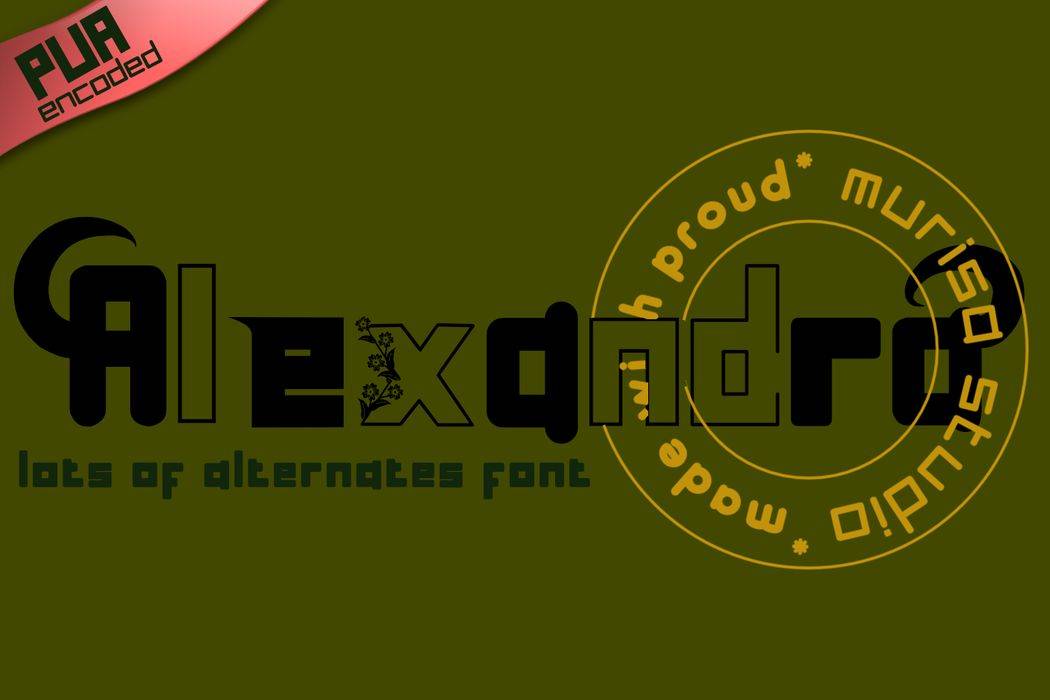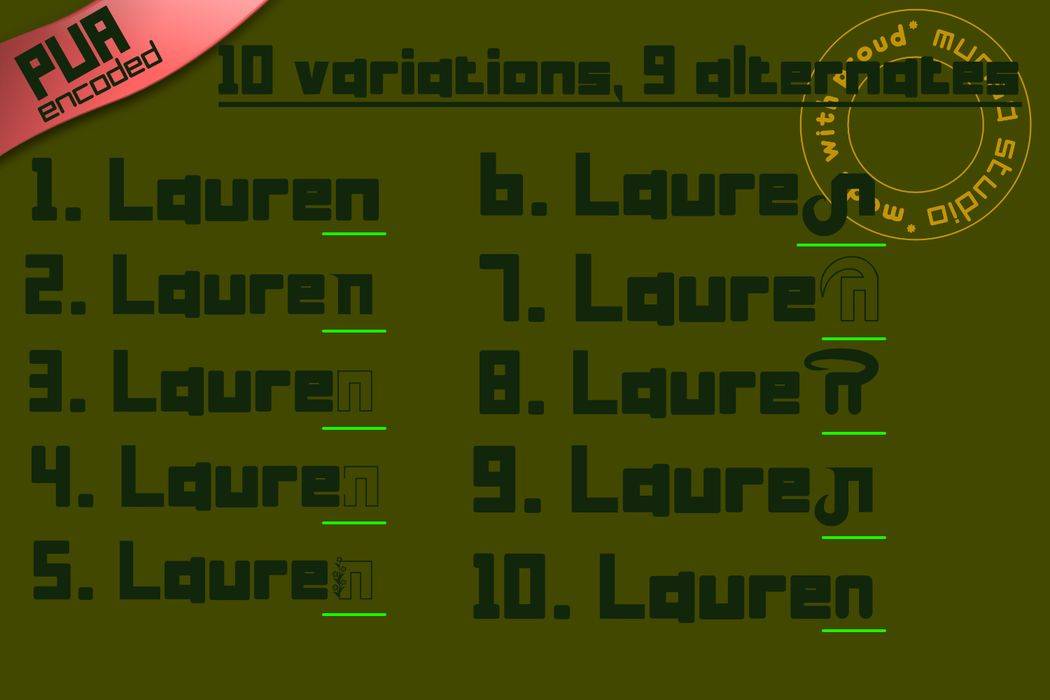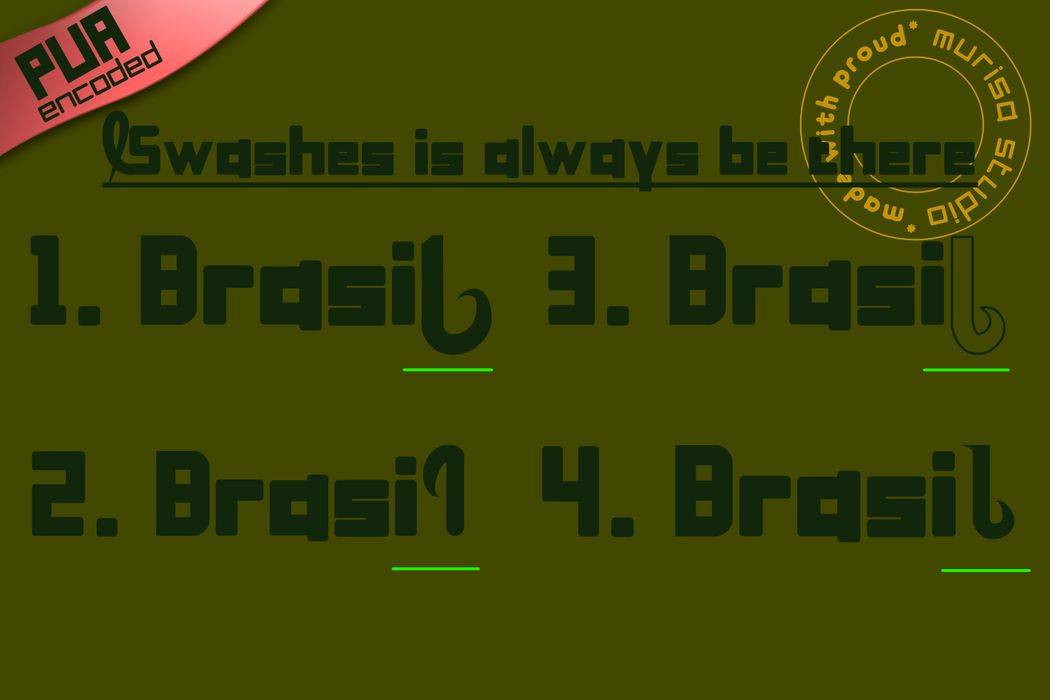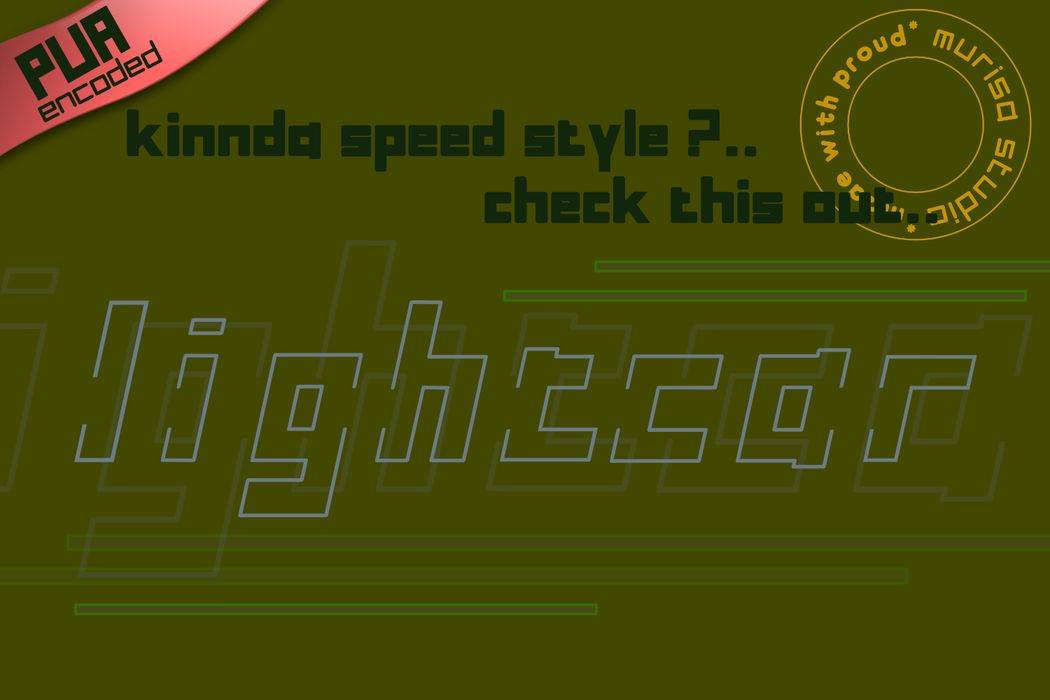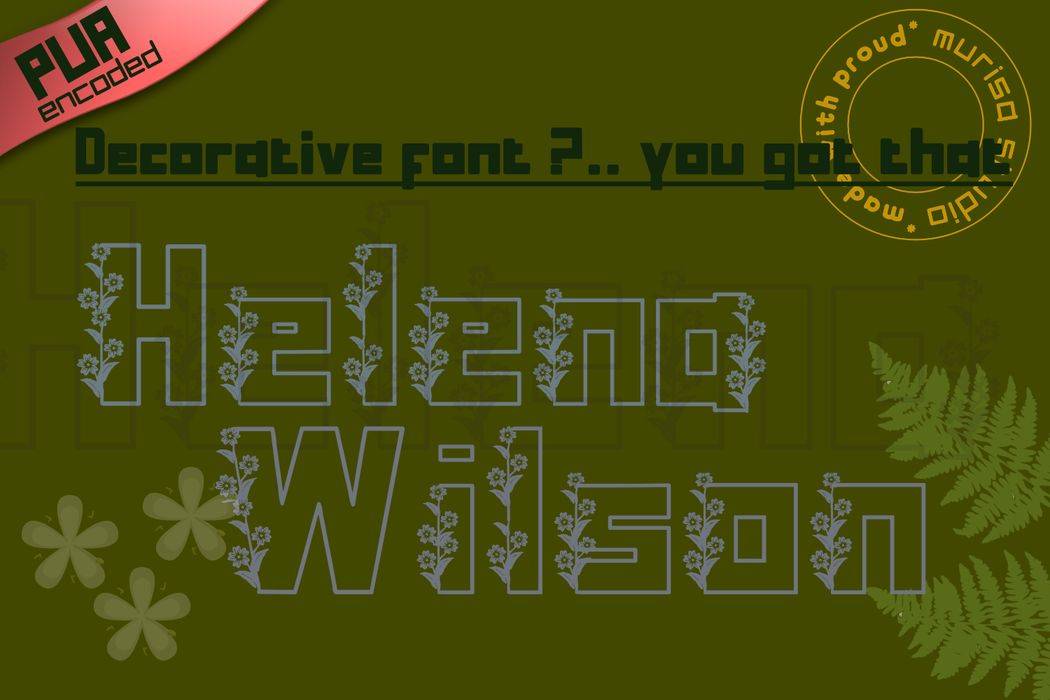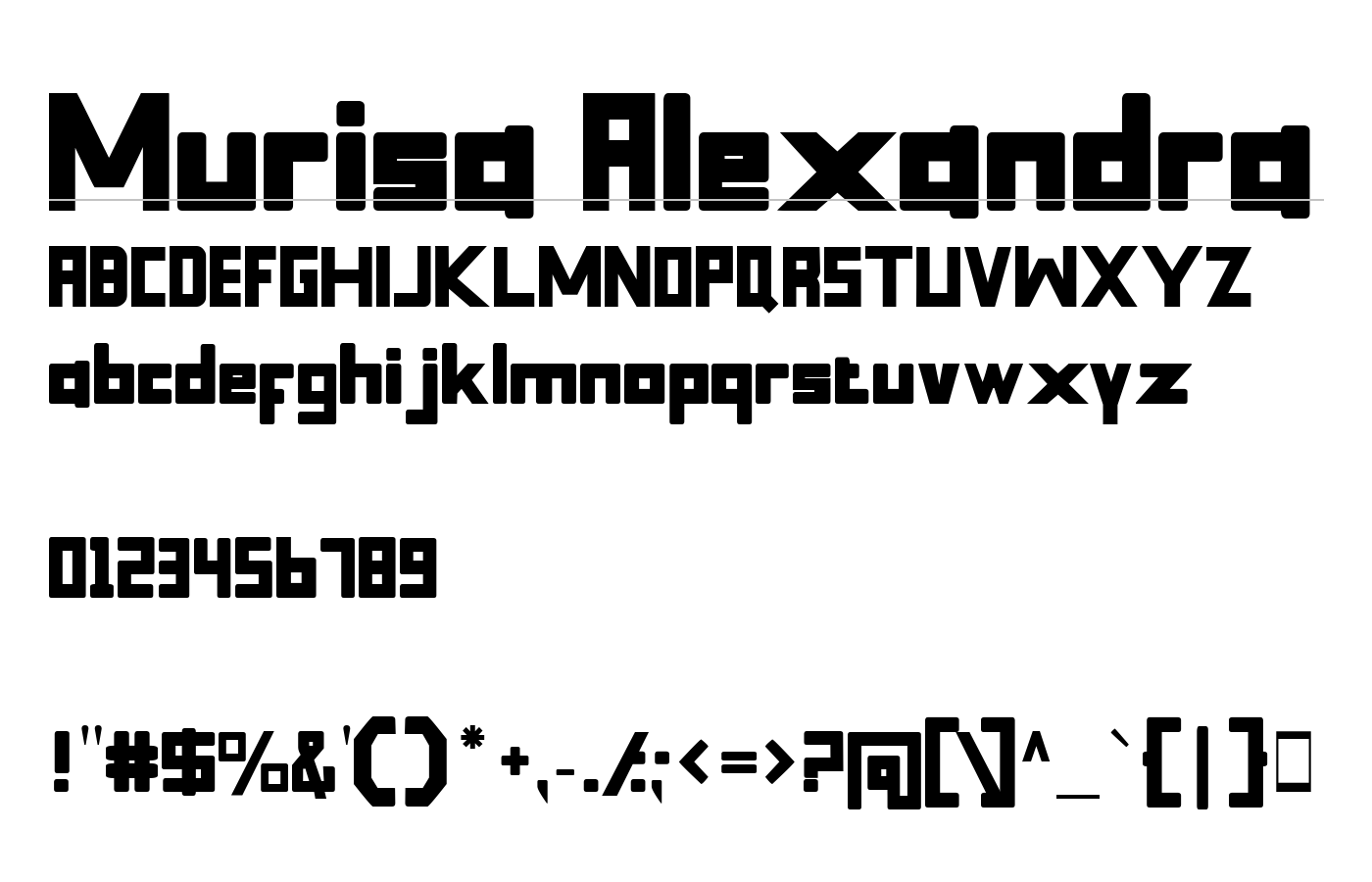
Murisa Alexandra is a bold, geometric sans serif font characterized by its blocky, modular shapes and strong, consistent stroke weight. Its squared letterforms and slightly condensed style convey a modern, industrial vibe, making it ideal for eye-catching headlines and branding that seeks to stand out with a tech-savvy or futuristic feel. This font works well in designs where clarity and impact are key, such as posters, logos, or digital media.
Murisa Alexandra Font
About Murisa Alexandra Font
| Font family | Murisa Alexandra Font |
| Release date | 2022-03-11 |
| Designer | Lili Sadili |